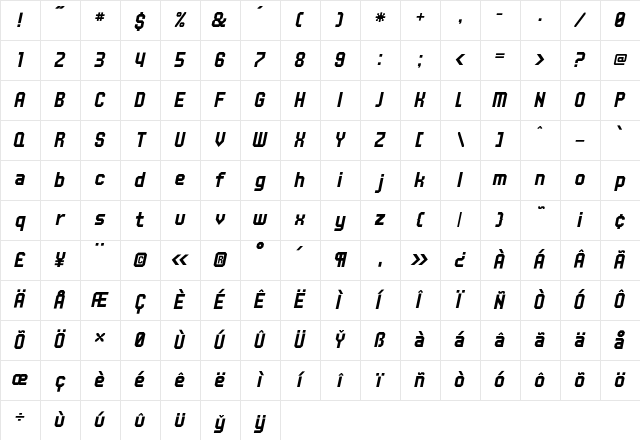
Complete UNDA AngleItalic glyph index. Displaying only characters natively supported by UNDA AngleItalic font.
UNDA is a composed and adaptable typeface that performs quietly and consistently across a wide range of design contexts. The slanted form adds forward momentum and visual energy.